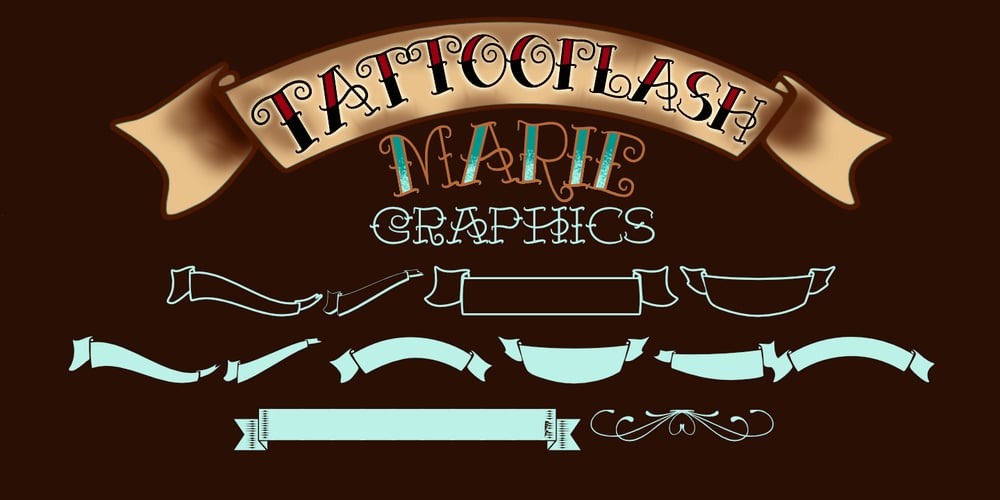
Tattooflash Marie
Tattooflash Marie font
Tattooflash Marie Font Family was designed by Otto Maurer and published by Otto Maurer. Tattooflash Marie contains 12 styles and family package options. Tattooflash Marie is made for Tattoofans, Tattoostudios and Tattoo artists. Make your own tattoo flash with your Name or the Names of your children. The Font is made for your skin but you can also make Tattooposter, Tattooequipment and more.